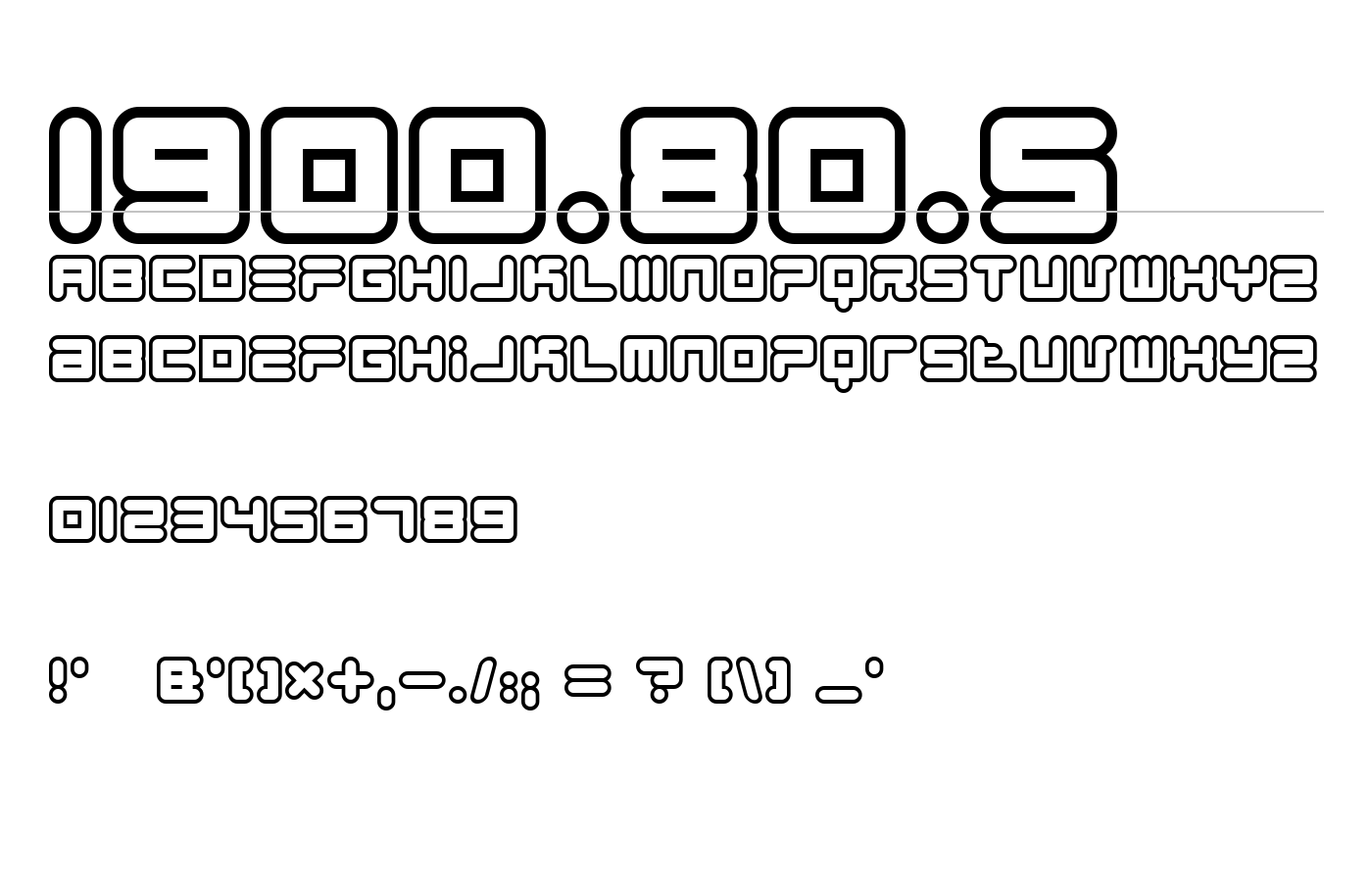
1900.80.5 is a futuristic, geometric sans serif font with bold, rounded outlines that create a distinctively modern and tech-inspired look. Its open, square letterforms and consistent stroke weight give it a clean and digital feel, making it ideal for technology branding, headlines, and modern graphic projects where a contemporary and playful style is desired. This font works well in eye-catching displays and logos that need a stylish and innovative personality.
1900.80.5 Font